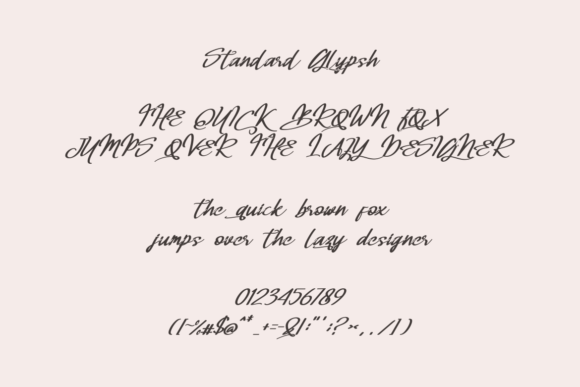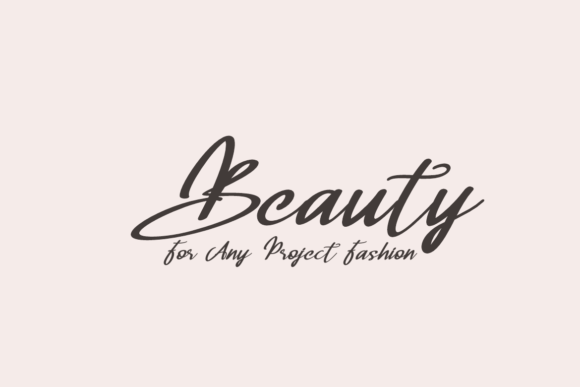
Introducing Handlatter Little Font: Elevate Your Designs with Elegance
In the world of typography, a font can make or break a design. For designers and crafters looking for that perfect touch of elegance and modernity, Handlatter Little Font is an excellent choice. This beautiful, handwritten font boasts a classy look with modern characters, making it incredibly versatile for a wide range of projects.
What is Handlatter Little Font?
Handlatter Little Font is an elegant handwritten font designed to bring a touch of sophistication and style to any project. Its classy appearance, coupled with modern character designs, ensures that it stands out in the crowd. Whether you’re working on fashion and apparel projects, signatures, album covers, logos, branding, magazines, social media content, or advertisements, Handlatter Little Font is a great addition to your typography arsenal.
Key Features of Handlatter Little Font
- Elegant and Classy Look: The font’s elegant strokes and classy appearance make it perfect for designs that require a sophisticated touch.
- Modern Characters: With its modern character design, Handlatter Little Font ensures your text looks contemporary and appealing.
- Versatility: This font is not limited to fashion and apparel; it’s also great for logos, branding, magazine titles, social media posts, and more.
- Easy to Read: Despite its elegant and modern look, the font maintains readability, making it suitable for both headings and body text.
Use Cases for Handlatter Little Font
The versatility of Handlatter Little Font makes it suitable for a myriad of design projects. Here are some of the best use cases:
- Fashion and Apparel: Use it for fashion brand logos, clothing labels, and marketing materials to convey a sense of luxury and style.
- Signatures and Logos: Add a personal touch to signatures or create memorable logos for businesses with a classy and modern feel.
- Album Covers: Give your music projects a professional and stylish look with elegant typography on album covers.
- Branding and Advertising: Enhance your brand’s visual identity and create compelling advertisements with this elegant font.
- Magazines and Social Media: Stand out in print or digital media with magazine titles, article headers, or social media posts that capture attention.
Why Choose Handlatter Little Font?
Choosing the right font for your project can be daunting, but here are a few reasons why Handlatter Little Font should be at the top of your list:
- Unique Style: It offers a unique blend of elegance and modernity that can set your designs apart.
- High Versatility: Its wide range of applications makes it a valuable asset for any designer or brand.
- Readability: The font’s clarity ensures your message is conveyed effectively, whether in headings or body text.
| Font Name | Handlatter Little Font |
| Author | ponuppo |
Handlatter Little Font is more than just a typeface; it’s a design element that can elevate your projects with its elegant and modern charm. Whether you’re a professional designer or a crafter, this font offers the versatility and style needed to make your work stand out. From fashion and apparel to branding and advertising, Handlatter Little Font is an excellent choice for anyone looking to add a touch of class and sophistication to their designs.